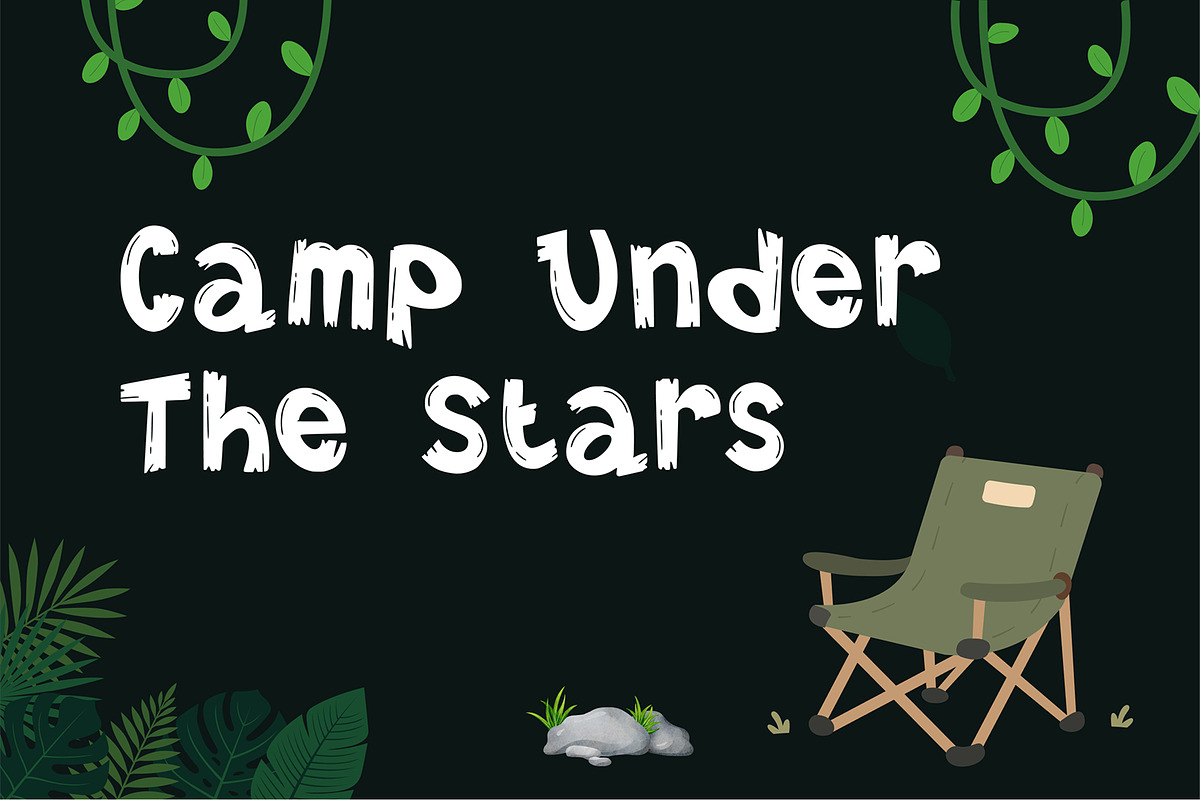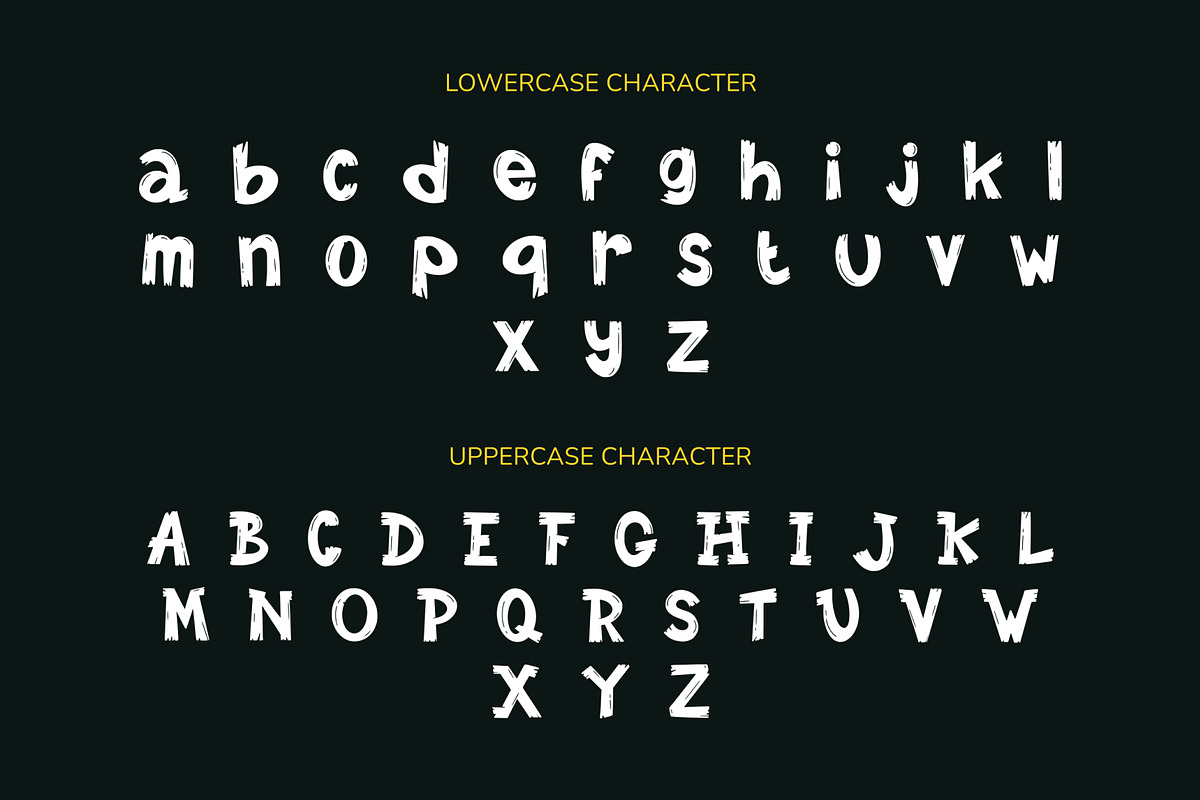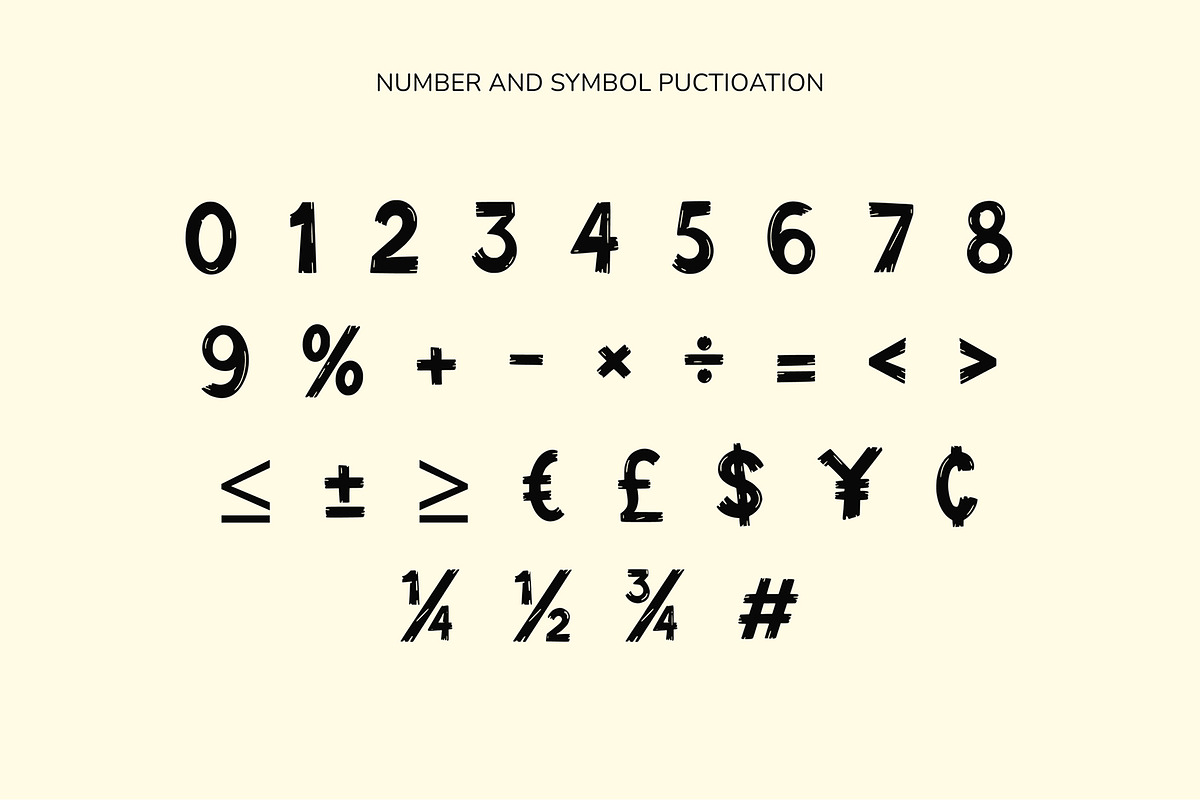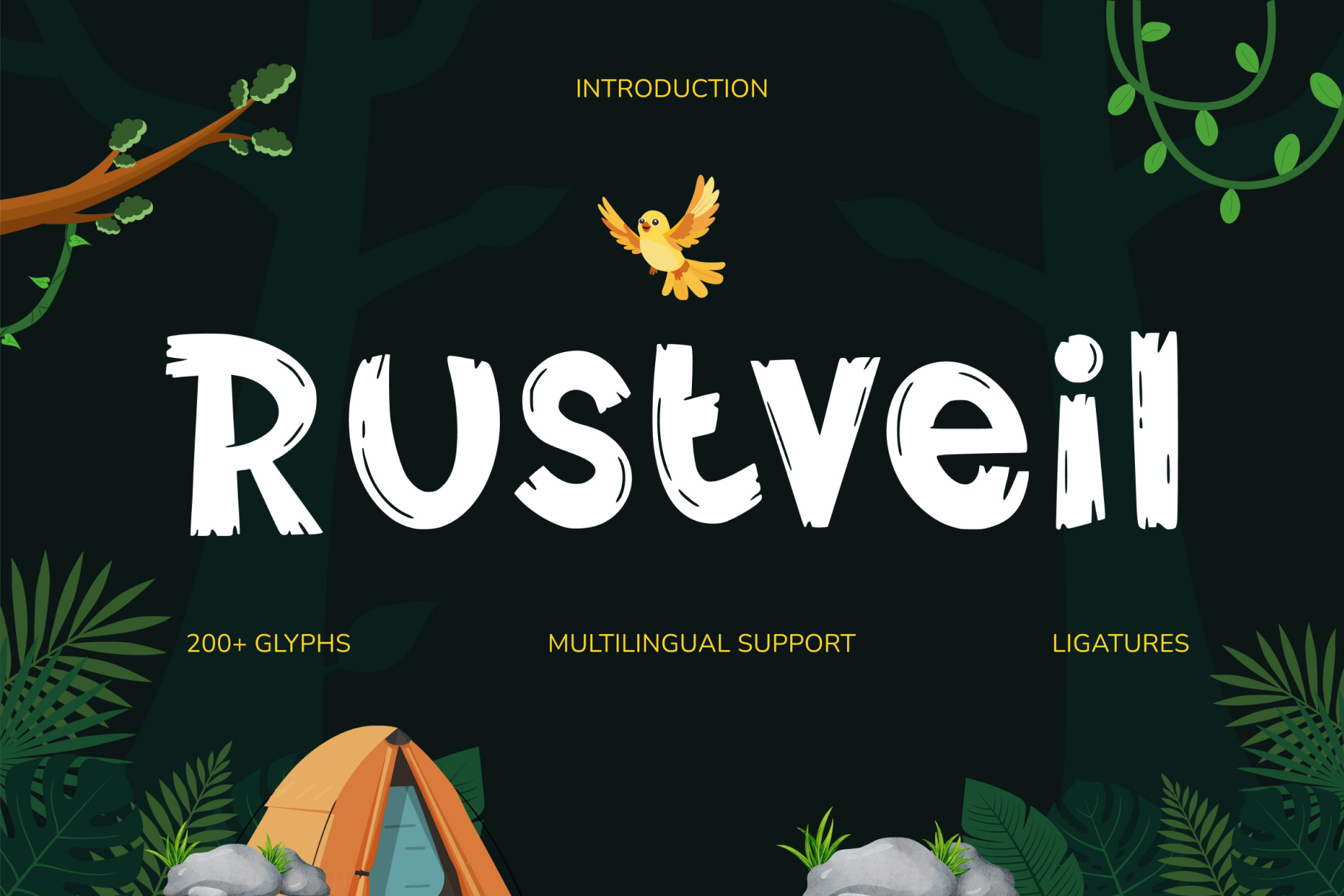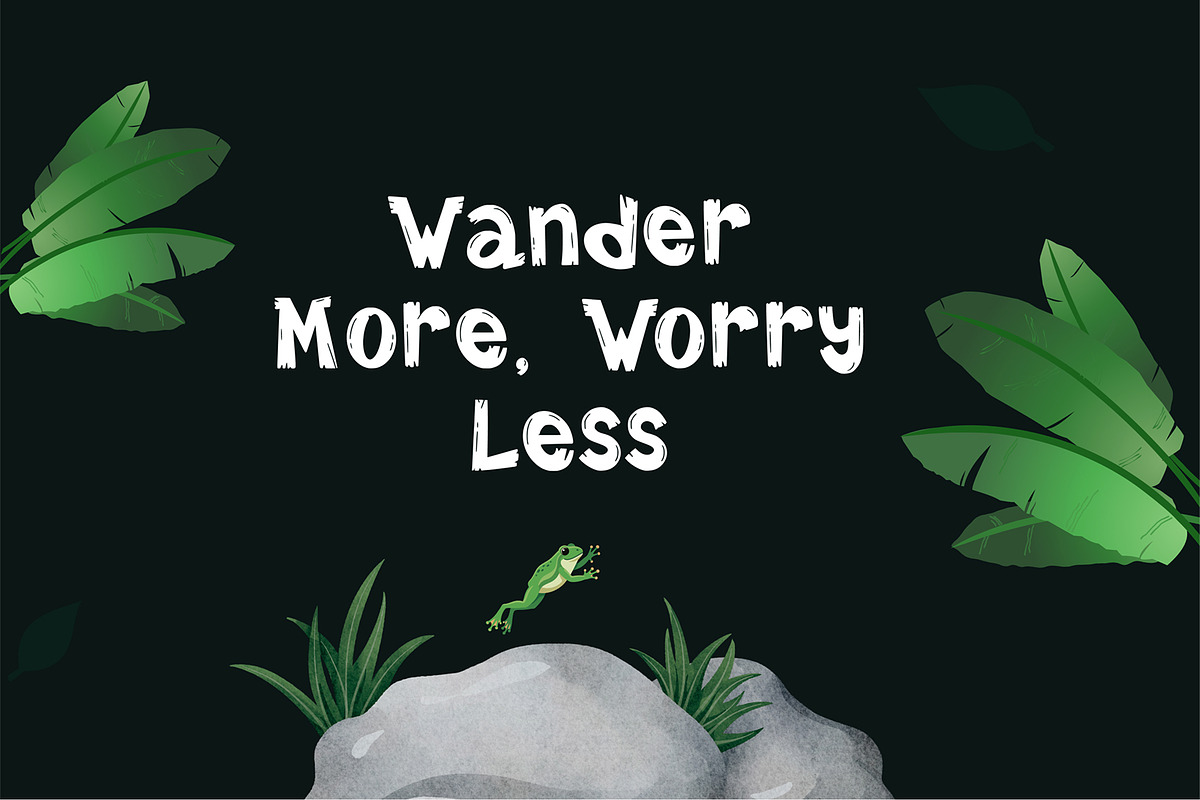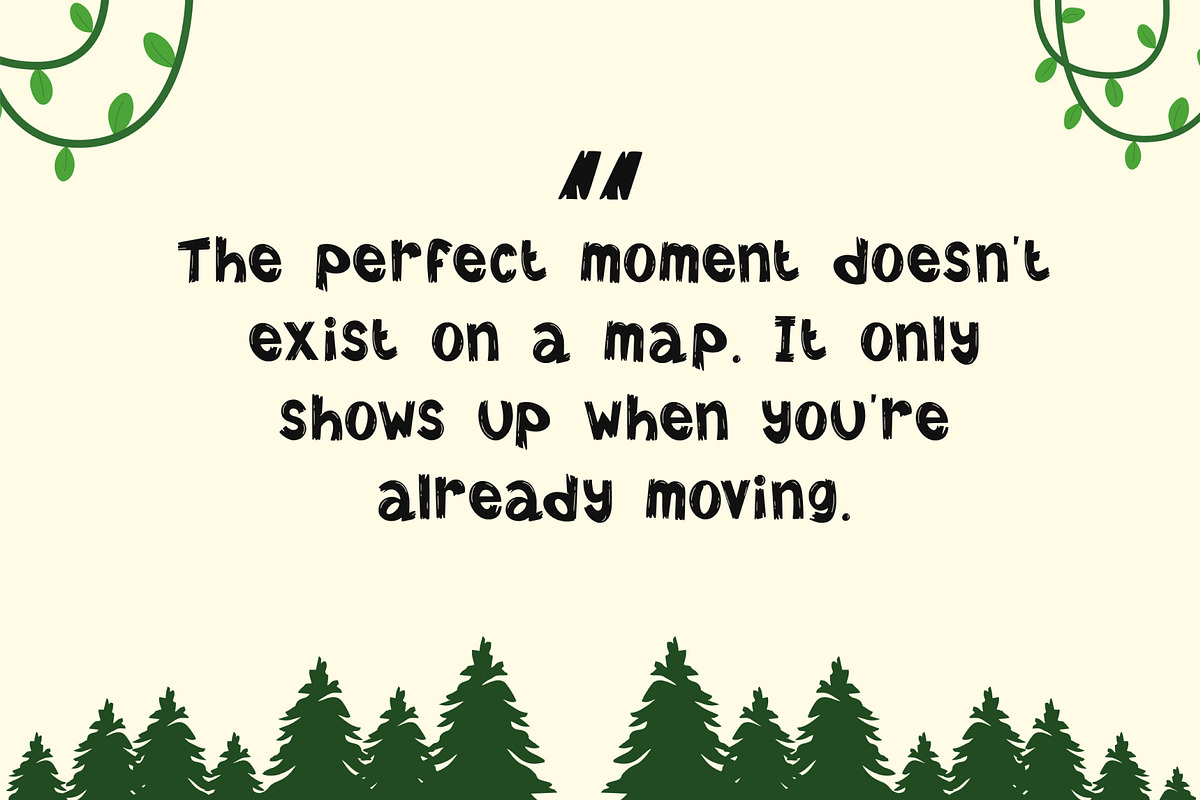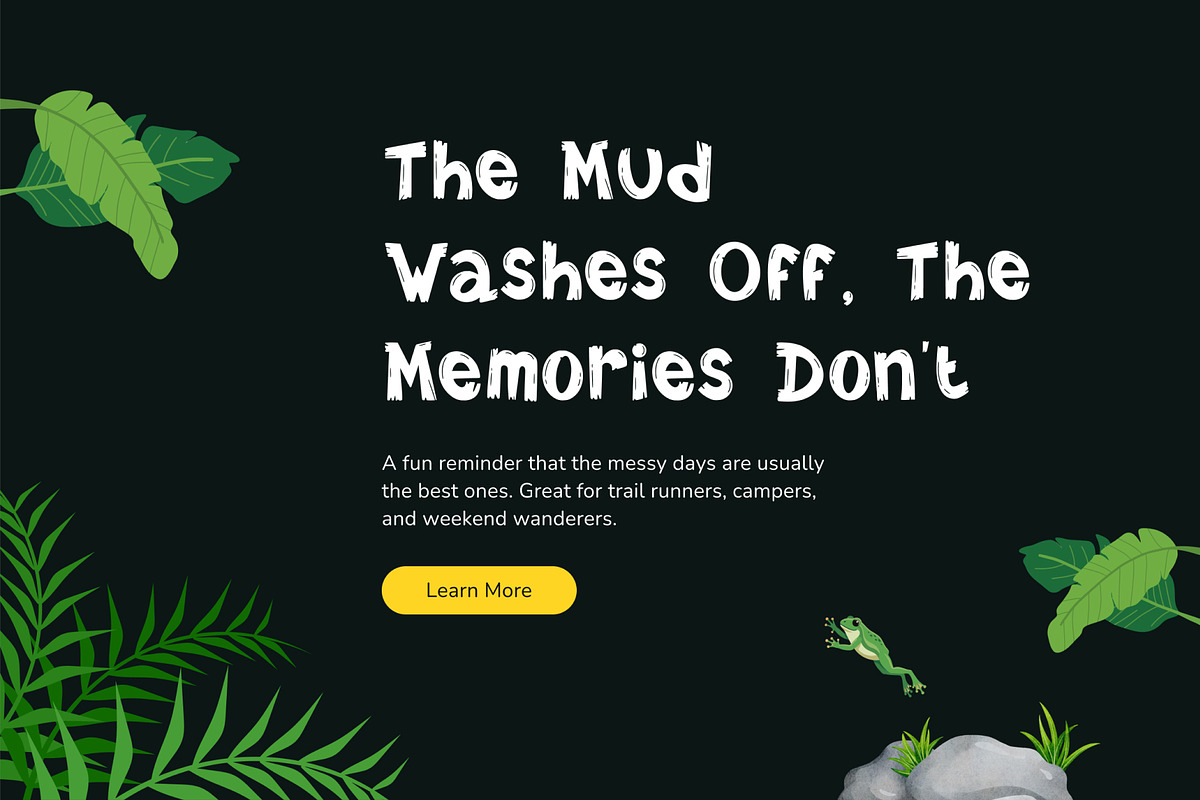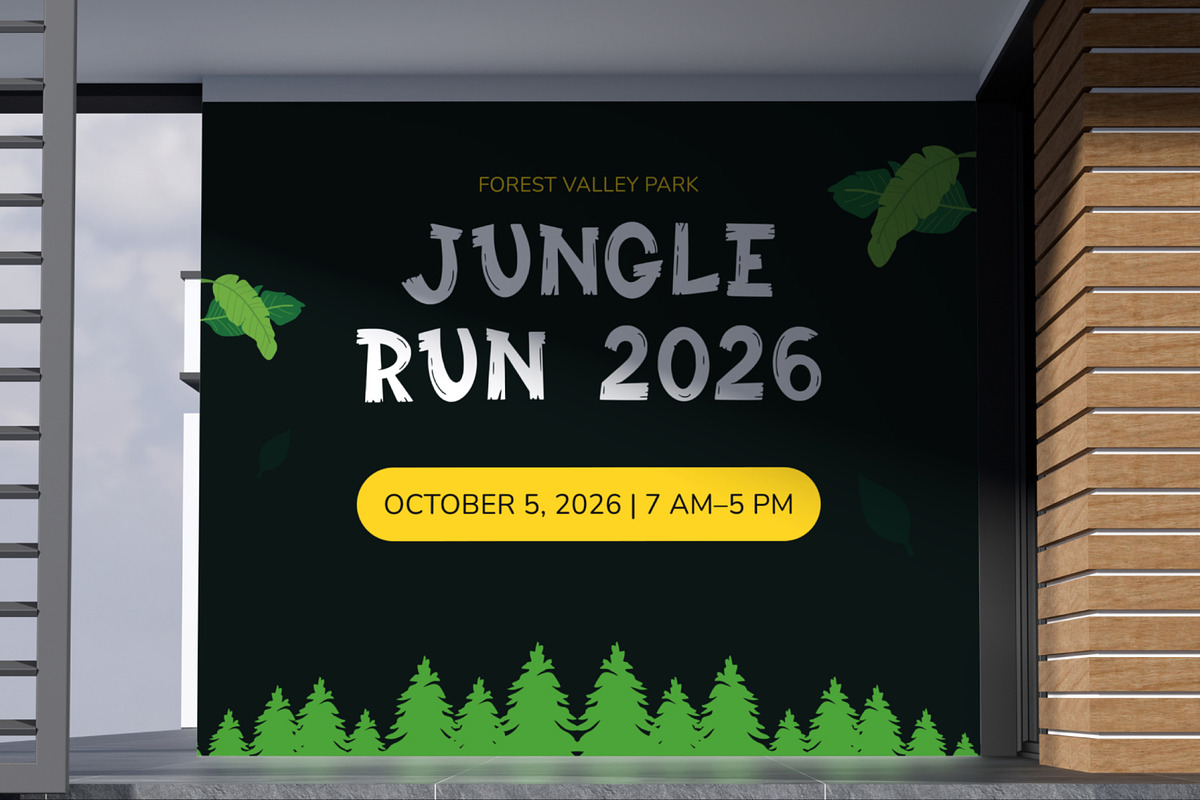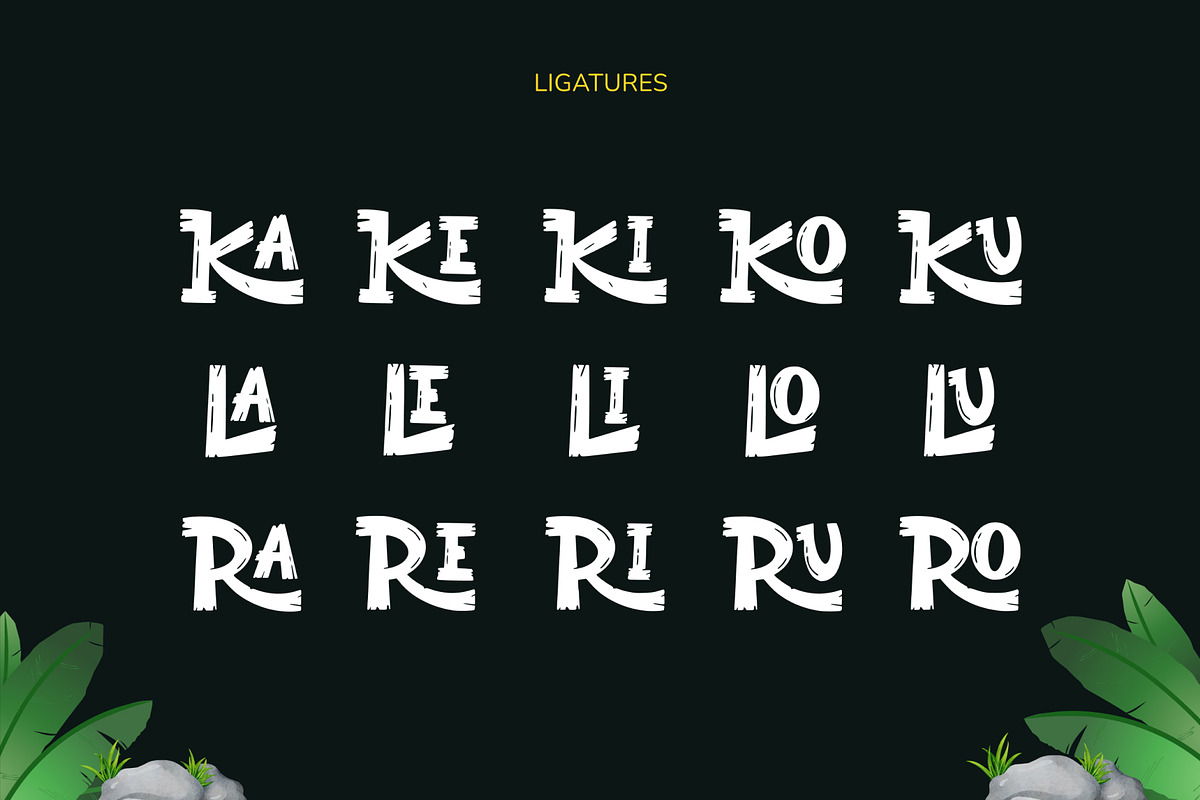
Adventure – Rustveil Font
Adventure – Rustveil Font is a bold and rugged display typeface designed to capture the spirit of exploration, freedom, and the great outdoors. With its handcrafted character, strong shapes, and vintage-inspired details, Rustveil brings an authentic adventurous feel to every design. Perfect for projects that aim to convey courage, discovery, nature, and an untamed spirit.
Ligatures Available
Full Character Set: Uppercase, lowercase, numbers, symbols, and punctuation
From outdoor brands to travel merchandise, Rustveil adds a bold and adventurous character to every project. Its rugged appearance and distinctive personality make it ideal for logos, apparel designs, posters, badges, stickers, packaging, social media visuals, travel graphics, and adventure-themed branding.